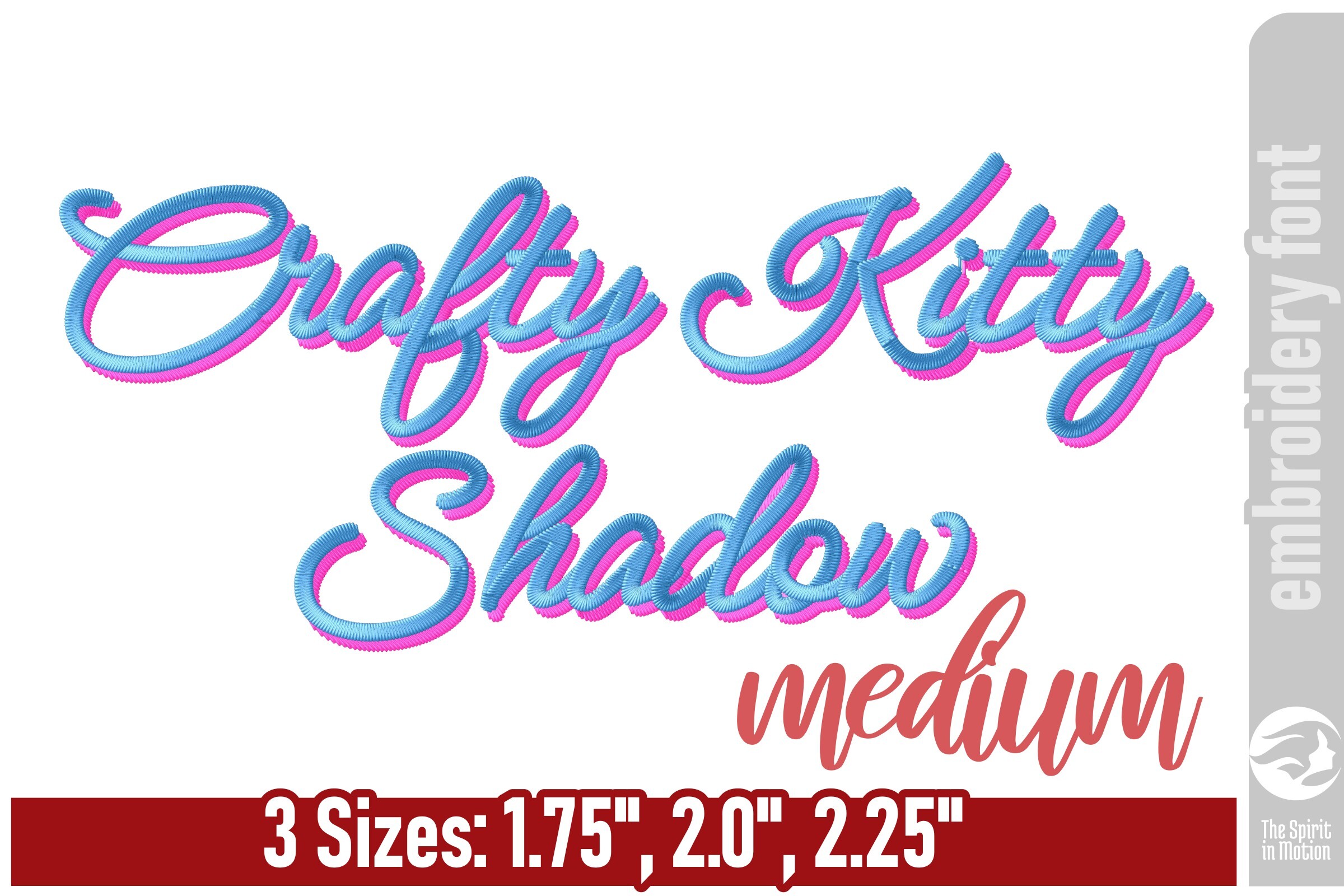
Crafty Kitty Shadow Embroidery Font - M
Crafty Kitty Shadow is a fun and expressive embroidery font designed to add depth and dimension to your stitching projects. Featuring the same flowing monoline style as the regular version, it stands out with a stitched shadow effect that makes each letter pop. This version includes uppercase and lowercase letters along with numerals, making it ideal for bold monograms, standout headlines, or playful designs. Perfect for children's clothing, themed projects, or creative accents, Crafty Kitty Shadow adds a unique touch that brings words to life. The sizes and stitches information shown below is for "A" and "a" in each size. This is provided as a summary of what is available in this download file. For the full dimension details of the 156 letters in this set, click on the More Sewing Info (PDF) button on this page.